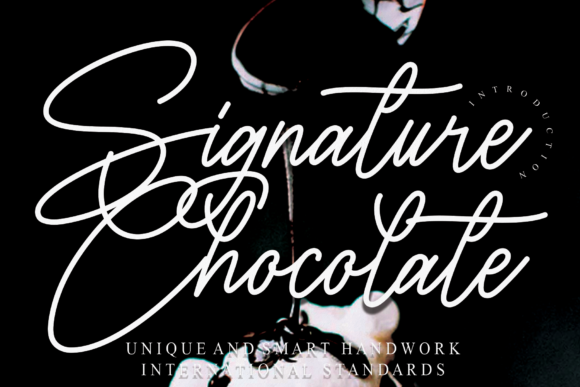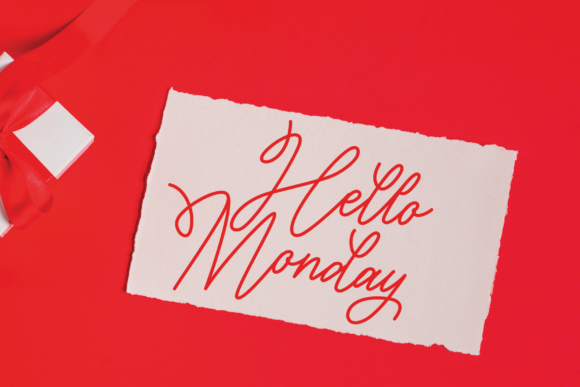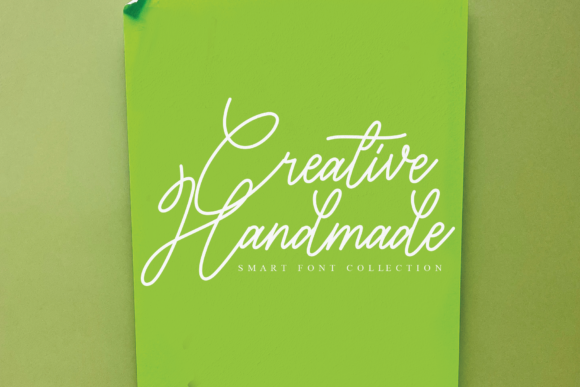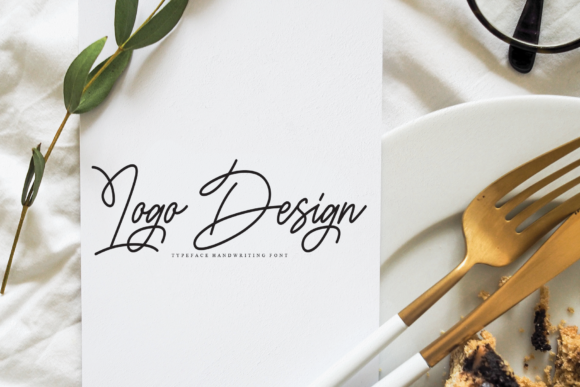
About Signature Chocolate Font
Signature Chocolate is a thin and slightly asymmetrical handwritten font that brings a touch of sophistication and elegance to any design. With its unique style, this font has the power to elevate your creations and make them truly stand out.
The thin and delicate strokes of Signature Chocolate give it a refined and graceful appearance. Its asymmetrical nature adds a subtle charm and organic feel, making it perfect for a wide range of topics and design projects. Whether you’re working on invitations, logos, branding materials, or any other creative endeavor, Signature Chocolate will enhance your designs with its distinctive character.
One of the key strengths of Signature Chocolate is its versatility. It seamlessly blends with different design styles, adapting to both modern and traditional aesthetics. The font’s clean and legible letterforms ensure that your message is conveyed clearly and effectively, while its subtle asymmetry adds a touch of uniqueness and visual interest.
Signature Chocolate is an asset to any font library because of its ability to bring an air of elegance and sophistication to your designs. It is particularly well-suited for projects that require a refined and luxurious touch, such as high-end product packaging, fashion branding, or upscale events. The font’s slim and graceful appearance adds a sense of exclusivity and craftsmanship to your creations.
Whether used in print or digital media, Signature Chocolate captivates viewers and leaves a lasting impression. Its thin and delicate lines exude a sense of precision and attention to detail, showcasing the artistry behind the handwritten style. By incorporating Signature Chocolate into your designs, you can create a sense of refinement and elegance that will elevate your overall visual presentation.
In summary, Signature Chocolate is a thin and slightly asymmetrical handwritten font that possesses the power to enhance any creation. Its versatility, elegance, and refined appearance make it a valuable asset to your font library. Embrace Signature Chocolate’s unique character and let it elevate your designs to new heights of sophistication.